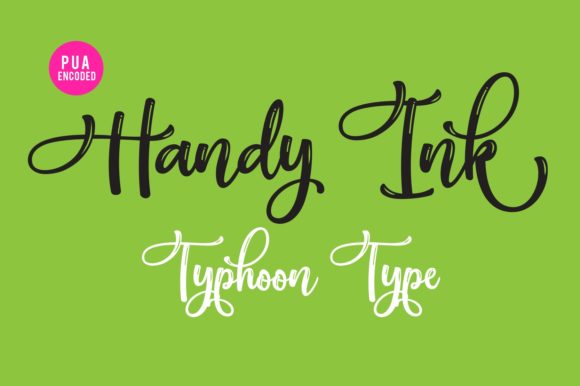
HomeScript FontsHandy Ink Font Script Fonts Handy Ink Font FacebookXPinterestWhatsApp Handy Ink Font Poster 2 About Handy Ink Font Handy Ink is a fresh and funky handwritten font with a unique style. Get inspired by its elegant charm! DOWNLOAD ON CREATIVE FABRICAThis font is sold and delivered by Creative Fabrica. Font Canyon may earn a commission if you buy through this link. People also explored Schwitz Signature Font Peacelove Font Just Love Font Greater Delight Font Bratterly Font Highstar Font Black Party Font Neguhetty Font Old Maquine Font 362 0 TagsHandy Ink Font Previous articlePersian Cotage FontNext articleHargalia Font LEAVE A REPLY Cancel reply Comment: Please enter your comment! Name:* Please enter your name here Email:* You have entered an incorrect email address! Please enter your email address here Website: Save my name, email, and website in this browser for the next time I comment. Personal Use Free Fribash Personal Use Free Read more about this font Lumber Personal Use Free Read more about this font Bally Girl Personal Use Free Read more about this font Gratisan Personal Use Free Read more about this font BLOG Best Fonts for T-Shirt Design – Top 2025 Picks In 2025, t-shirt design has become more than just fashion—it's a form of self-expression. Whether you're... Free Fonts Risk: Why Free Fonts Can Be Dangerous for Designers Transform Your Website: Elevate Your Typography with 7 Best Web Font Generators Free vs Paid Fonts: Why Investing in Premium Fonts Is Worth It